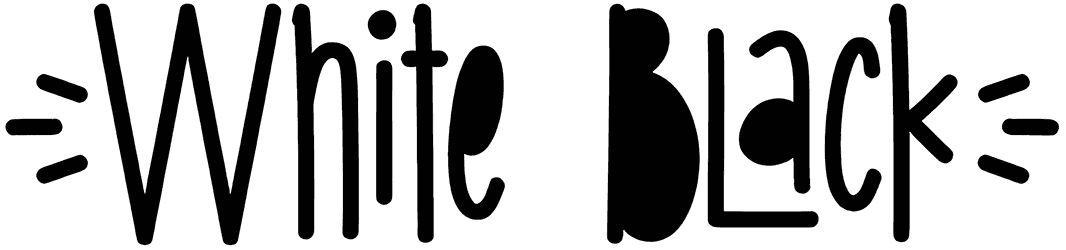
Peach Cream Creamsicles Font
Peach Cream Creamsicles is a doodle font mimicking the cartoon style. The unusual, eccentric thing about it is that it comes with one version of letters which is a mixture of both uppercase and lowercase letters which is pretty cool!
Peach Cream Creamsicles with those thin, smooth, monotone characters make it easy for you to make an informal, clean impression for your texts in games, websites, product packaging, and print T-shirts.